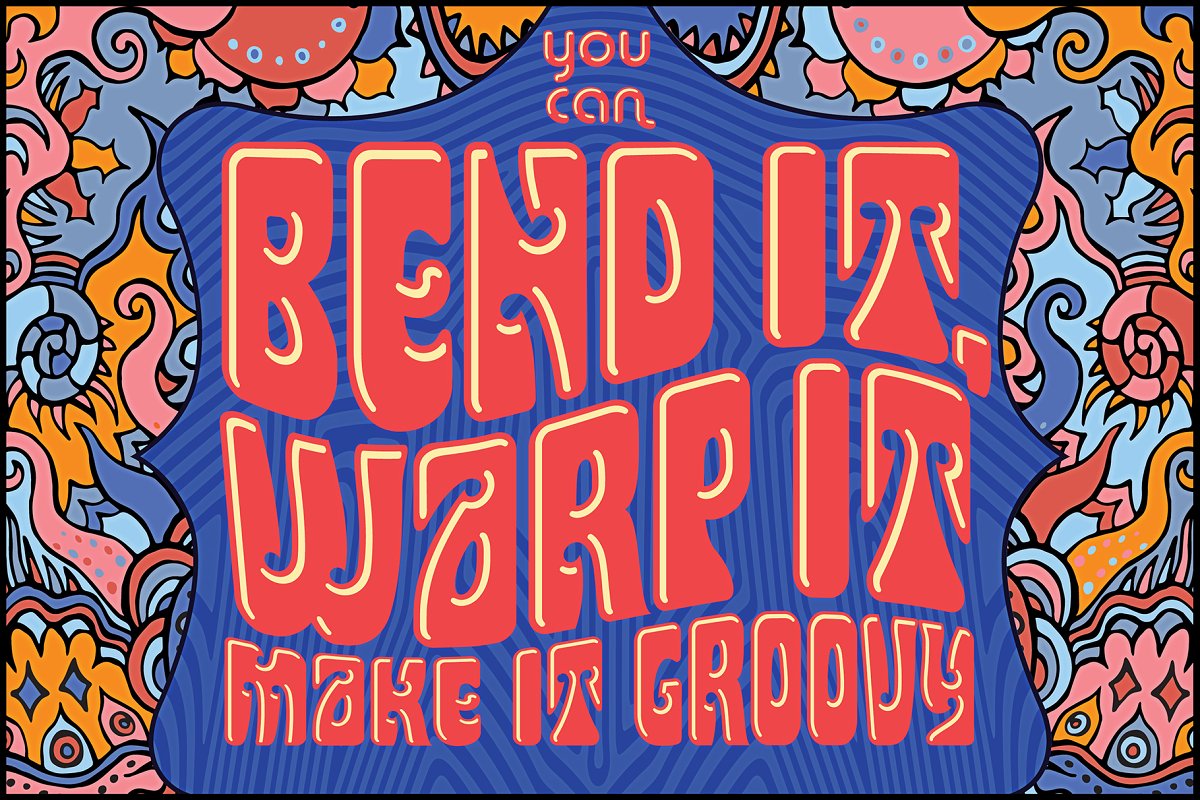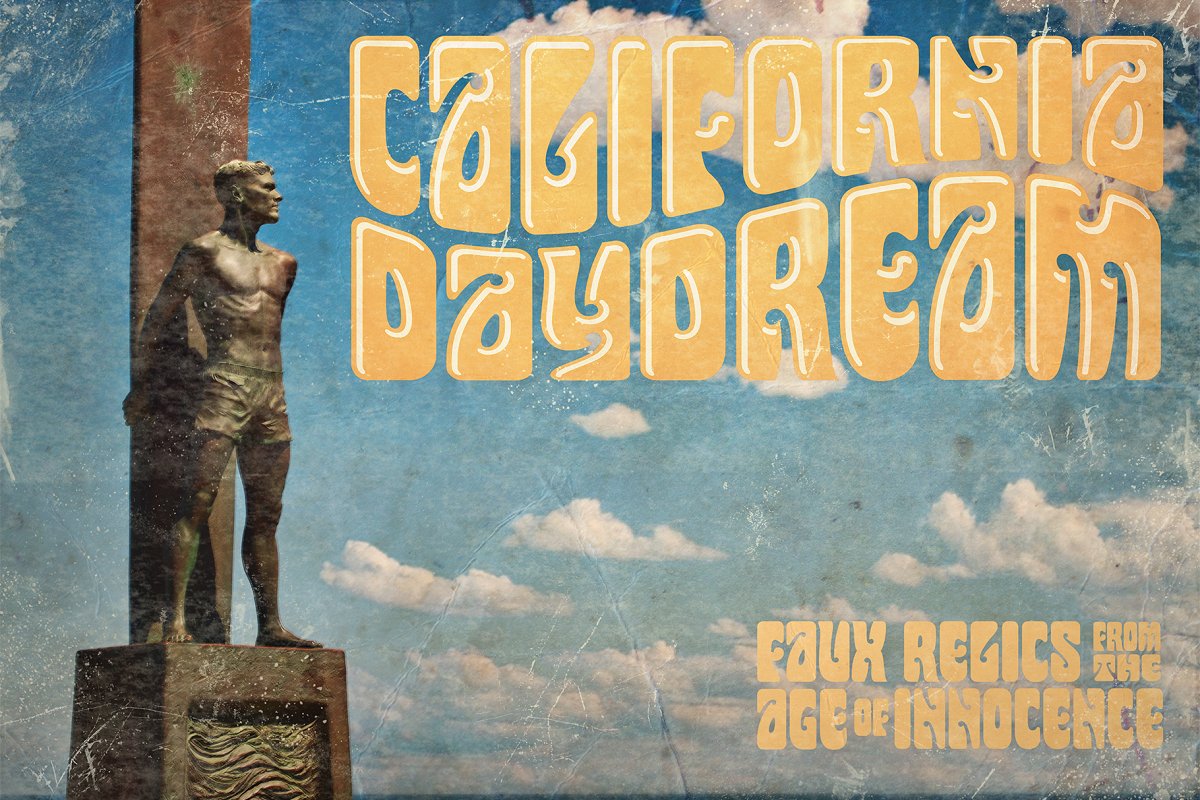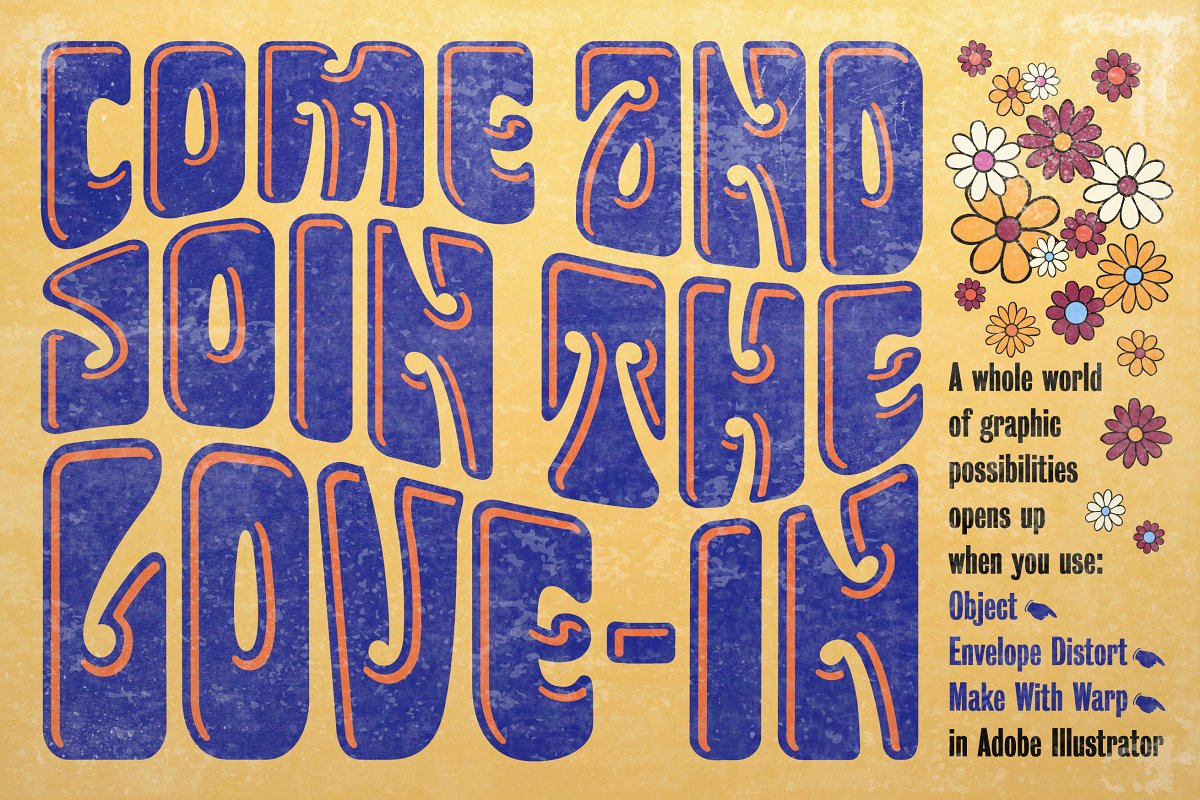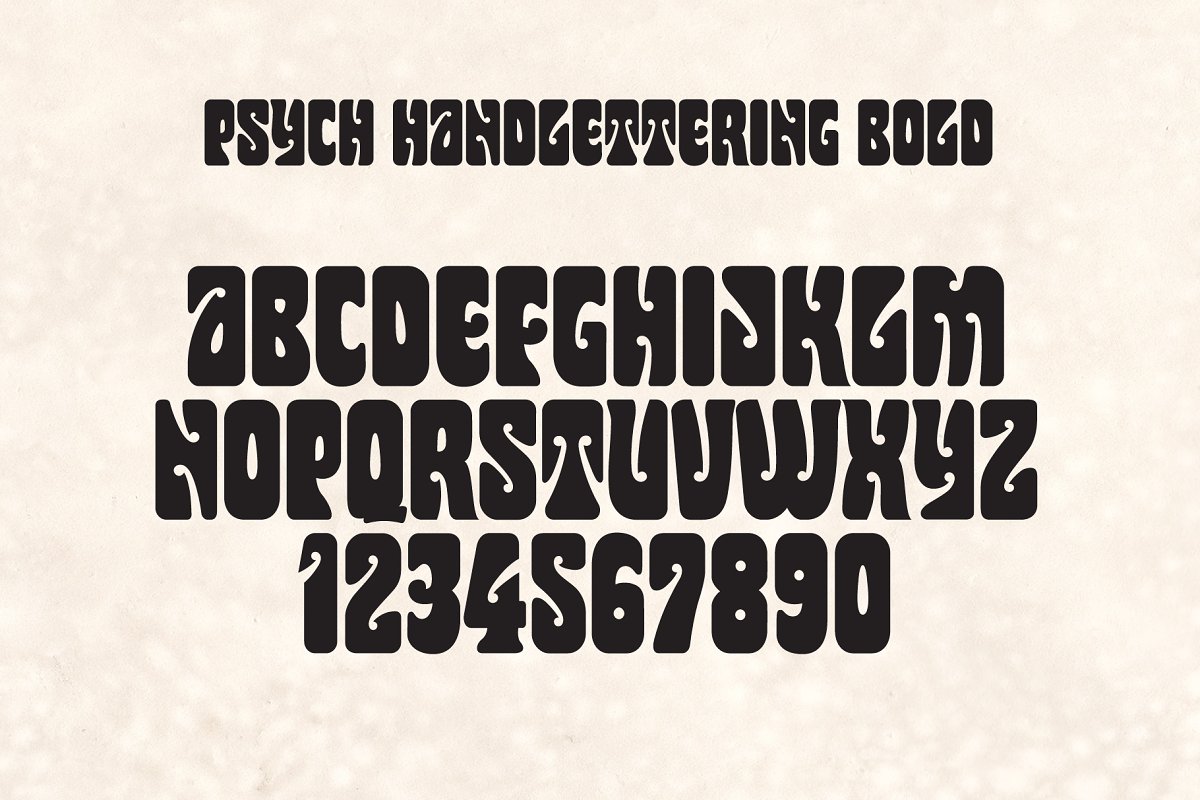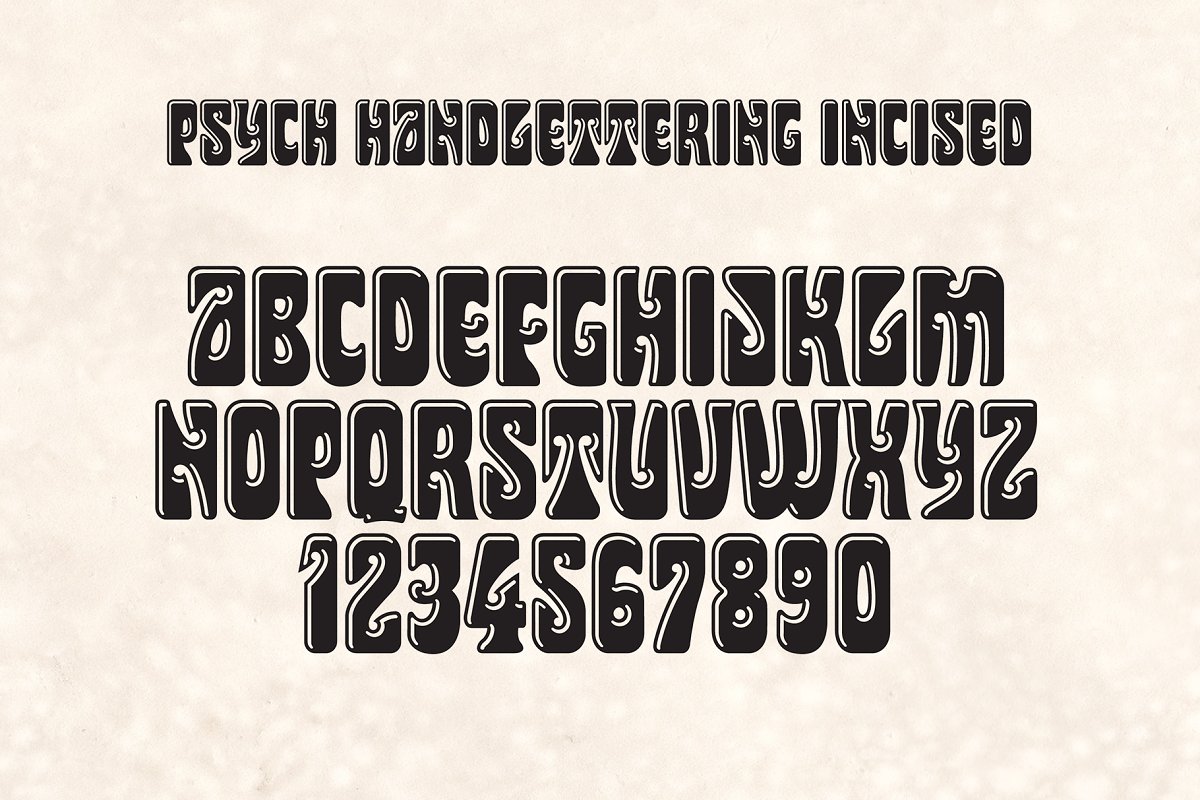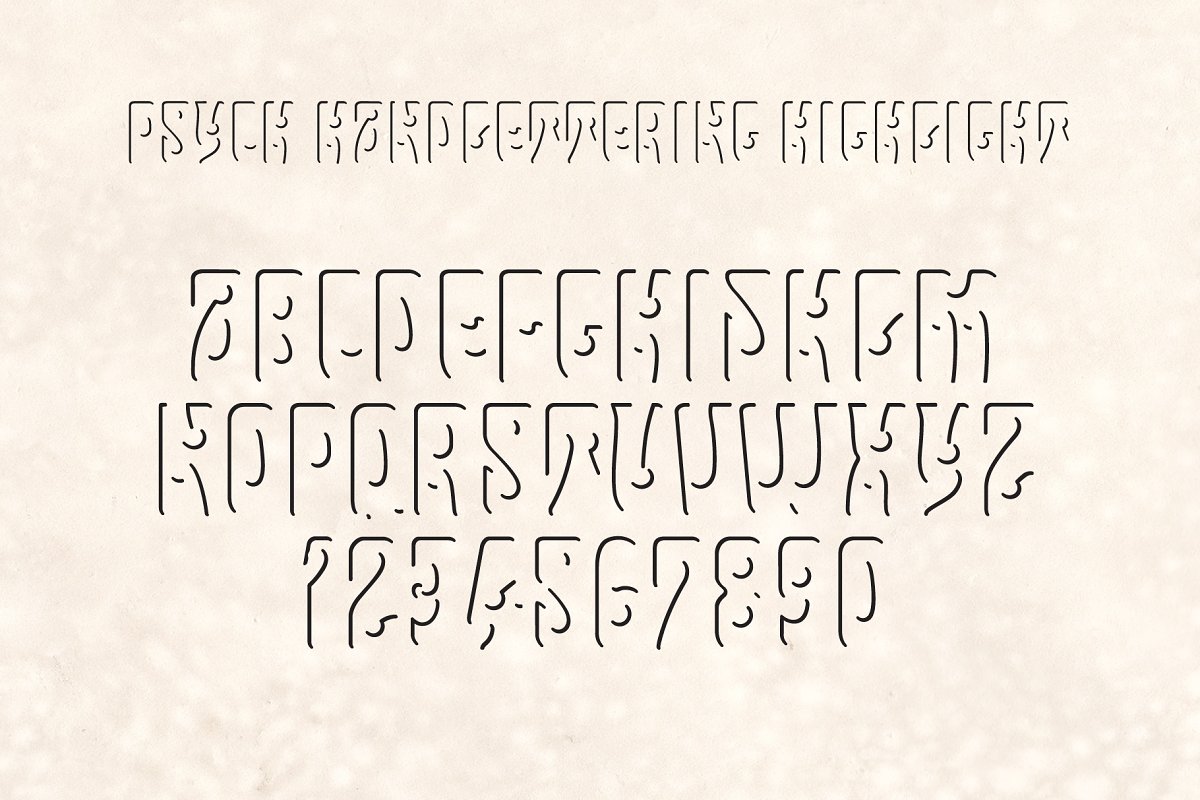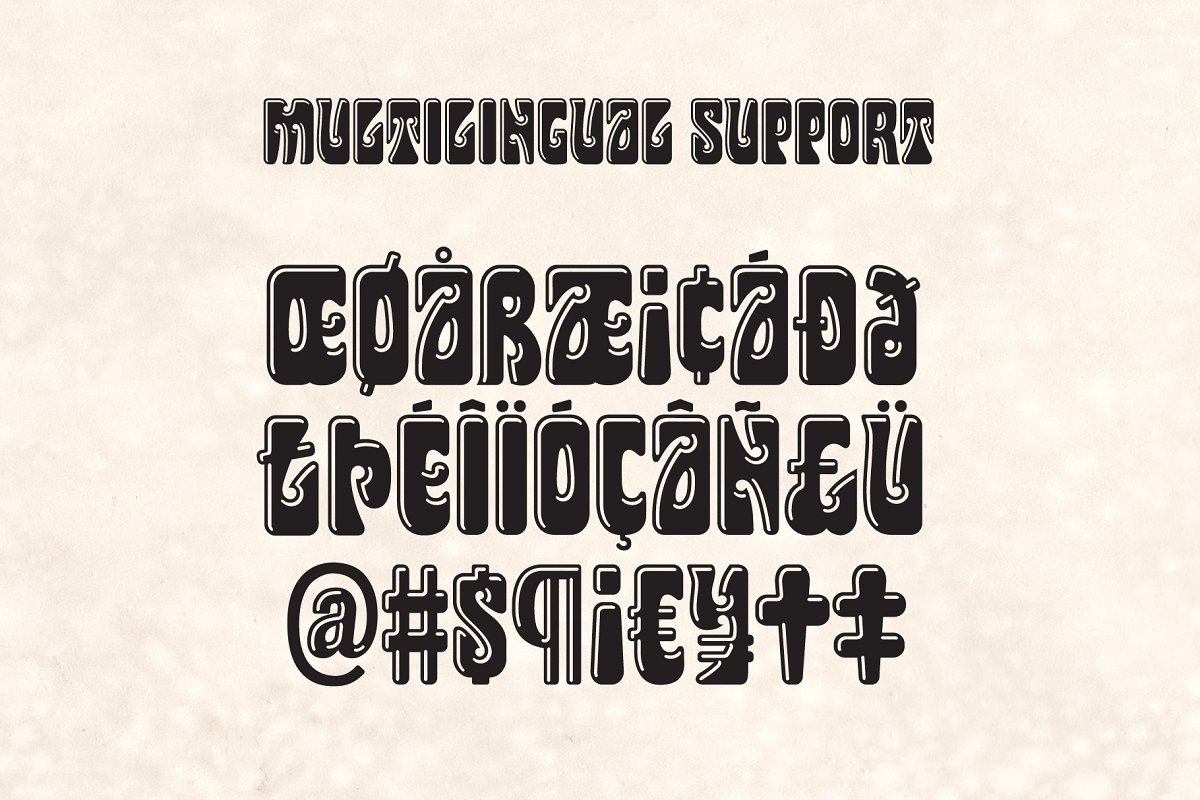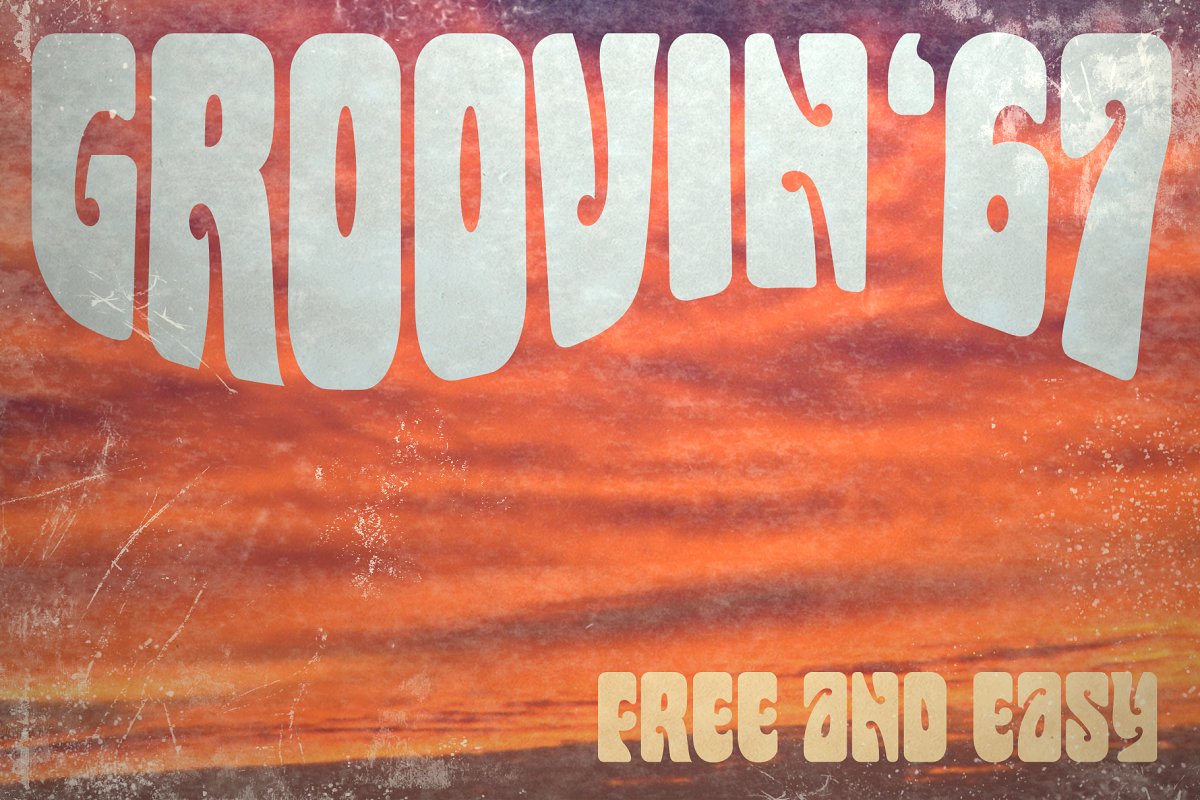
PSYCH HANDLETTERING FONTHere’s a font distilled from the lettering styles of a thousand vintage psychedelic rock albums and posters from the swingin’ sixties, All of the grooviness, but perhaps twice the legibility of some of the more far out examples from the genre, For those who liked my earlier vector art , eps version of this alphabet — but wanted to be able to type text — here’s the long-awaited three-font all capitals suite in
otf and , ttf formats, with a full character set and multilingual glyphs, so you can say Trippy, Man, in many languages, Once loaded on your system, the three versions of the font show in your menu as the following three weights: Psych Handlettering Bold, Psych Handlettering Incised, and Psych Handlettering Highlight
The 3-alphabet collection works together seamlessly to allow you to assign one color to the body of the letter, and a second color to the inset highlight lines, Just copy your text block, paste in place, reassign the font to the highlight version, choose a complimentary color, and off you go